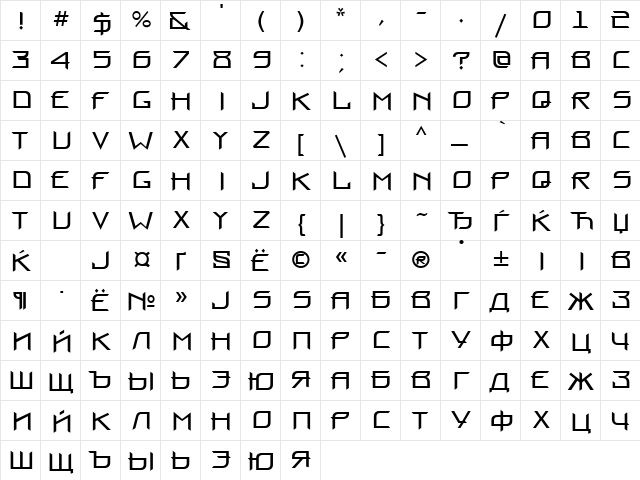
ProunBCTT Regular
Design Context for ProunBCTT Typeface
ProunBCTT takes a measured approach to typography — its balanced proportions and neutral character make it a reliable workhorse for both digital and print work.